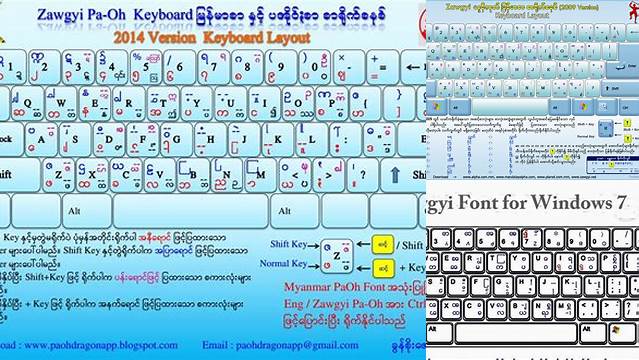
Hey guys! Looking to type in Zawgyi on your Windows 10 machine? You've come to the right place! This guide will walk you through everything you need to know about Zawgyi font and keyboard for Windows 10 free download. We'll cover installation, troubleshooting, and even some tips to make your Zawgyi typing experience smoother. Zawgyi is a widely used font for the Burmese language, and having it on your computer allows you to read and write Burmese script effortlessly. So, let's dive in and get you set up!
1. What is Zawgyi Font?
Before we jump into the download and installation process, let's understand what Zawgyi font actually is. Zawgyi is a popular, though sometimes controversial, encoding standard for the Burmese language. It's designed to display Burmese characters on computers and other devices. Zawgyi font is essential for anyone who wants to read and write in Burmese on their Windows 10 PC. It's important to note that Zawgyi is not a Unicode standard, which can sometimes lead to compatibility issues, but it remains widely used in Myanmar. This section will provide you with a comprehensive understanding of what Zawgyi font is, its history, and why it’s so important for Burmese speakers. You’ll also learn about the differences between Zawgyi and Unicode, and the implications for using Zawgyi on your system. This knowledge will help you make informed decisions about using Zawgyi and troubleshoot any potential issues that may arise. Having the correct font is the first step in ensuring your system can display the characters correctly. Without it, you’ll just see a bunch of squares or gibberish instead of the beautiful Burmese script. So, let’s get you equipped with the right tools to make your digital life in Burmese seamless.